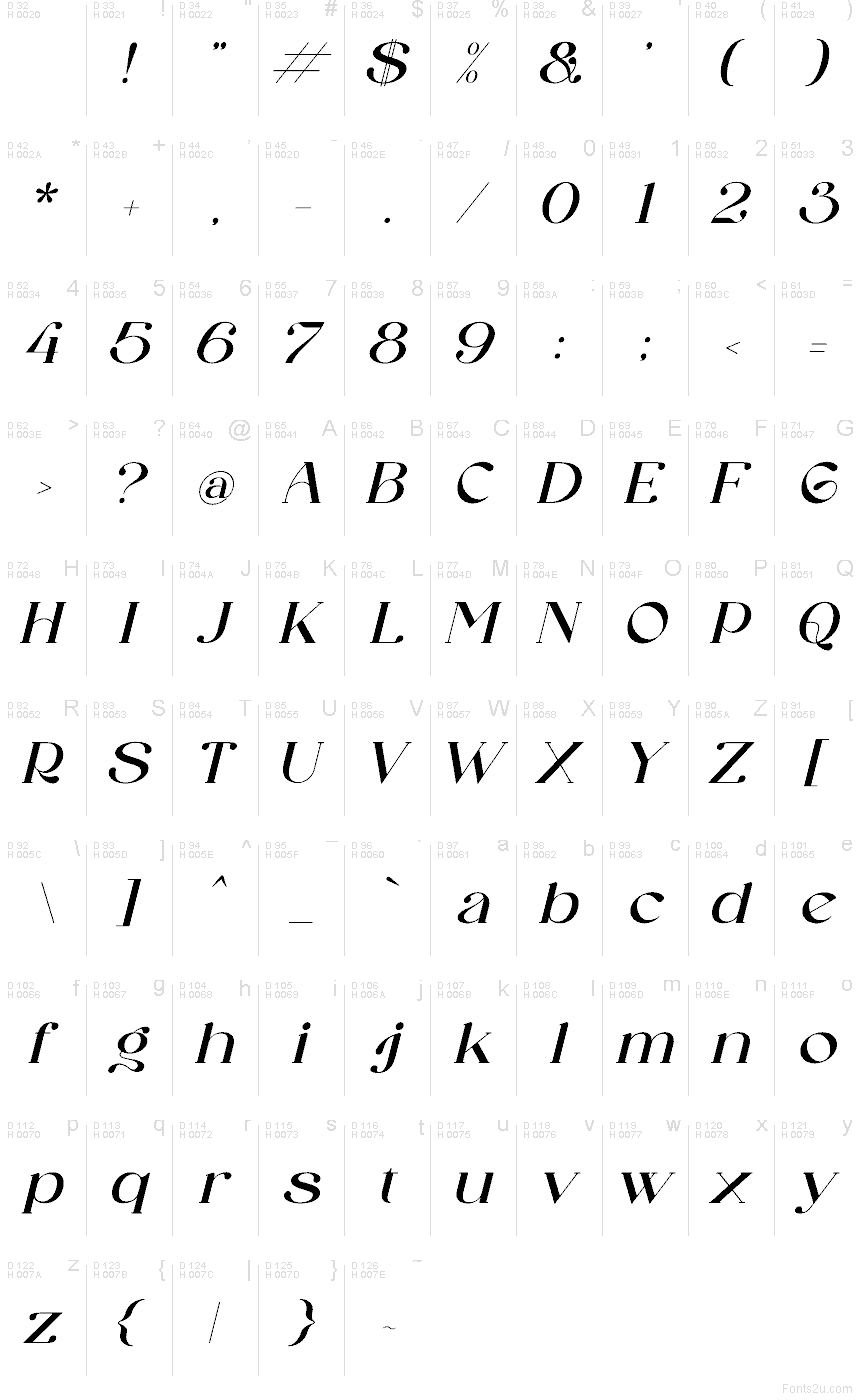
Galeriya Italic font by Dede Nugraha of Gracetype Studios is a free serif font in the Galeriya family, with an italic voice that feels like fresh ink pulled quickly across creamy paper. Its strokes swing from hairline-thin to boldly weighted in one breath, giving words a rhythmic slant and a refined, editorial sparkle without getting fussy.
Using Galeriya Italic, try it on book covers, fashion lookbooks, café menus, beauty packaging, event invitations, art posters, and quote graphics where a little drama helps. This free font also shines in short headlines and pull quotes-set it slightly larger with generous tracking, and pair it with a calm geometric sans for body text.